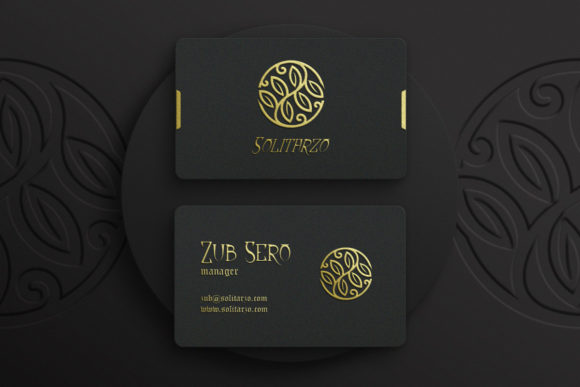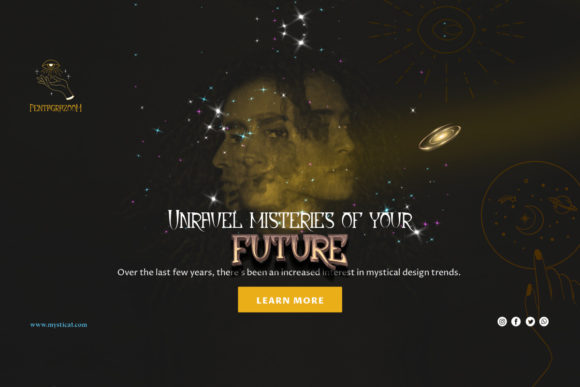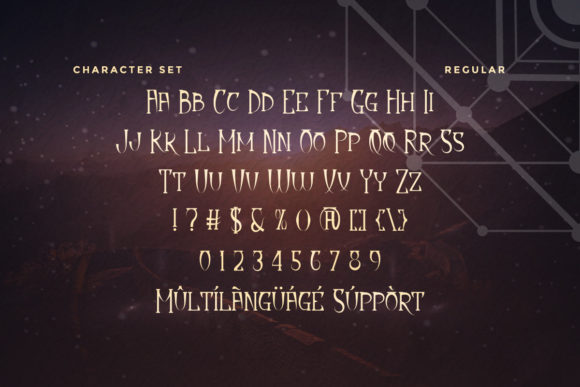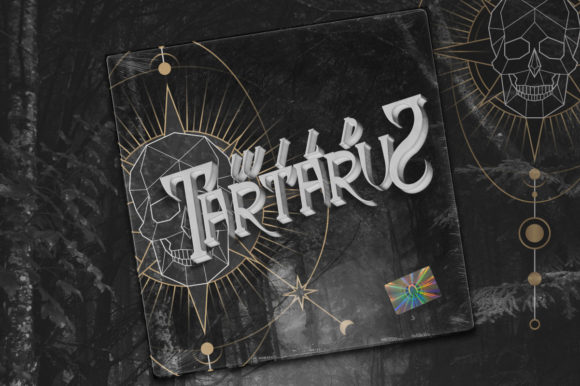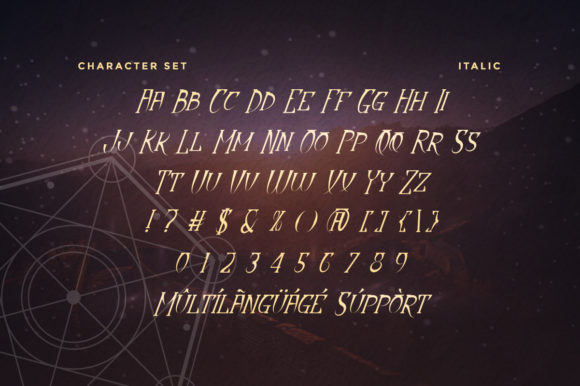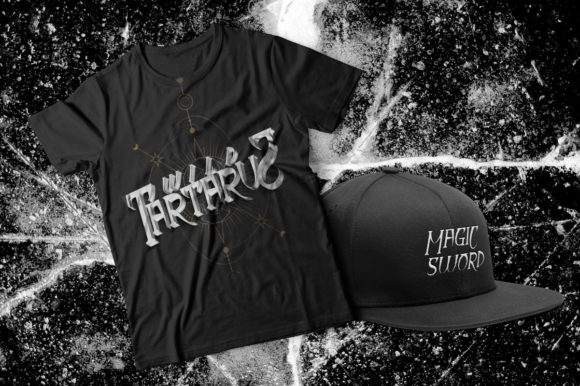
Dynastic Font: The Ultimate Choice for Creepy and Spooky Designs
Are you a designer or crafter looking for a font that can add a distinct touch to your creations? Look no further than the Dynastic Font. This cool, creepy, and spooky display font is imposing and features uniquely shaped letters that will make your designs stand out from the crowd.
What is Dynastic Font?
Dynastic Font is a display font designed to make a statement. Its unique and imposing letter shapes make it perfect for designs that require a creepy or spooky touch. Whether you’re working on a Halloween-themed project, a horror movie poster, or a haunted house advertisement, Dynastic Font is the perfect choice.
Key Features of Dynastic Font
- Unique Letter Shapes: Dynastic Font features uniquely shaped letters that are sure to grab attention. Each letter is carefully crafted to create a creepy and spooky effect.
- Imposing Design: The font has an imposing design that makes it perfect for headlines, titles, and other display text.
- Versatile: Dynastic Font can be used for a wide range of designs, from Halloween-themed projects to horror movie posters, haunted house advertisements, and more.
- Easily Readable: Despite its unique design, Dynastic Font is easily readable, making it perfect for display text.
Benefits of Using Dynastic Font
- Adds a Unique Touch: Dynastic Font adds a unique touch to your designs, setting them apart from others.
- Creepy and Spooky Effect: The font’s creepy and spooky effect makes it perfect for Halloween-themed projects and horror movie posters.
- Easily Readable: Despite its unique design, Dynastic Font is easily readable, making it perfect for display text.
- Versatile: Dynastic Font can be used for a wide range of designs, making it a great addition to your font library.
Tips and Tricks for Using Dynastic Font
- Use it Sparingly: Use Dynastic Font sparingly to make a bigger impact. Overusing the font can make your design look cluttered.
- Pair it with Other Fonts: Pair Dynastic Font with other fonts to create a unique and visually appealing design.
- Experiment with Colors: Experiment with different colors to find the perfect combination that works with your design.
- Keep it Simple: Keep your design simple and clean to let Dynastic Font be the focal point.
Dynastic Font is a cool, creepy, and spooky display font that’s perfect for designers and crafters looking to add a distinct touch to their creations. Its unique and imposing letter shapes make it perfect for Halloween-themed projects, horror movie posters, haunted house advertisements, and more. With its versatility, readability, and ease of use, Dynastic Font is a great addition to any font library.